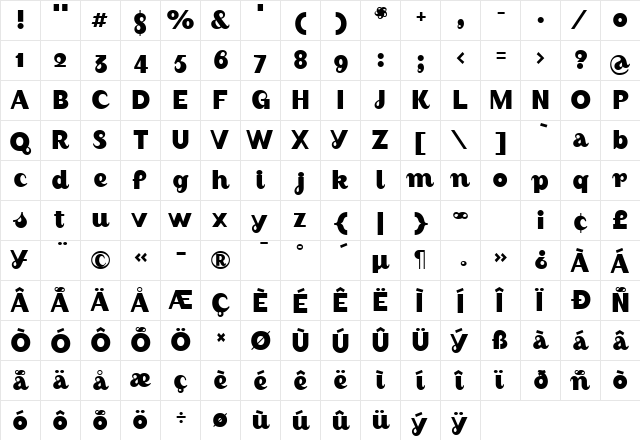
AugustBold Regular
Design Context for AugustBold Typeface
AugustBold offers clean, dependable letterforms without strong stylistic allegiance, making it a practical choice for designers who need flexibility. The heavy weight commands attention and anchors typographic hierarchies.